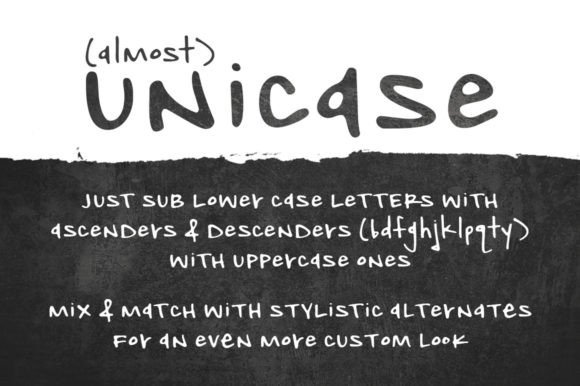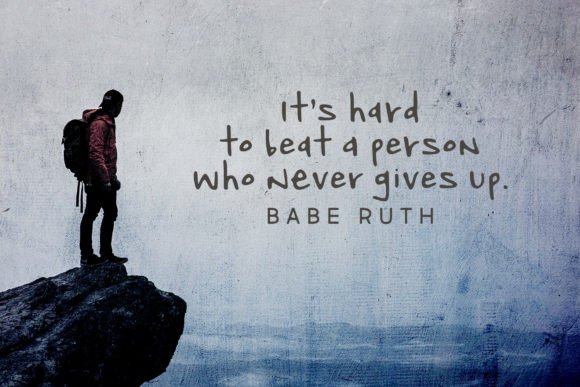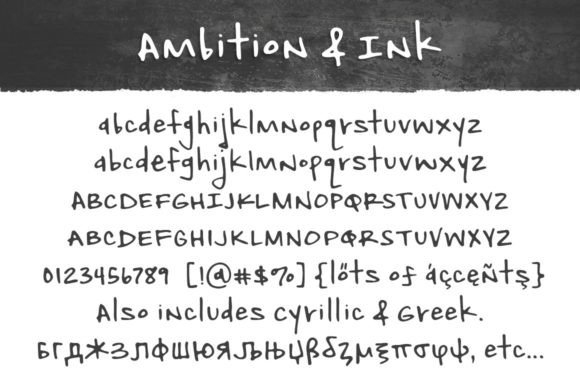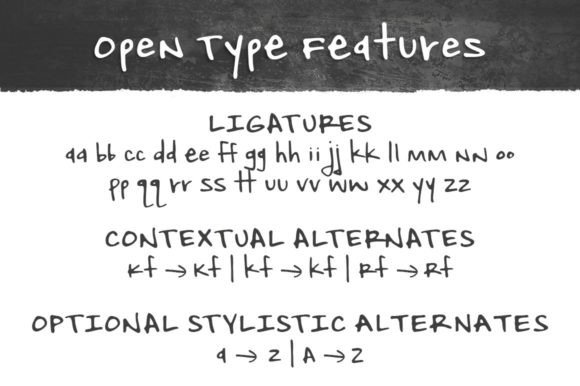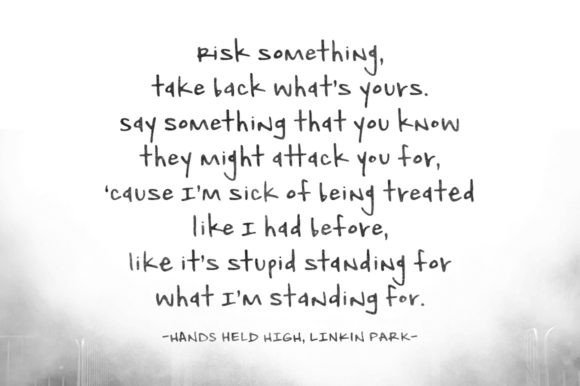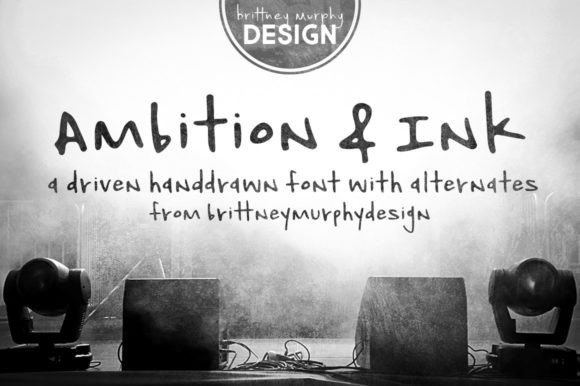
Unleash Your Creativity with Ambition & Ink Font
Are you tired of using the same old fonts for your creative projects? Do you want to add a touch of uniqueness and modernity to your designs? Look no further than Ambition & Ink Font, a driven hand-drawn font that offers a wide range of customization options. With its distinctive characters, this font is perfect for designers and crafters who want to make their creations stand out from the crowd.
The Power of Hand-Drawn Fonts
Hand-drawn fonts have become increasingly popular in recent years, and for good reason. They offer a level of personality and character that digital fonts simply can’t match. Ambition & Ink Font is a prime example of a hand-drawn font that has been carefully crafted to provide a unique and original look. Each character has been meticulously drawn to ensure that it is not only aesthetically pleasing but also highly legible.
Customization Options Galore
One of the best things about Ambition & Ink Font is its versatility. With a wide range of customization options available, you can tailor the font to suit your specific needs. Whether you want to change the color, adjust the spacing, or experiment with different combinations of characters, this font gives you the freedom to get creative. Whether you’re designing a logo, creating a social media graphic, or crafting a handmade card, Ambition & Ink Font provides the perfect tool to bring your vision to life.
Make Your Creations Look Fresh and Modern
Ambition & Ink Font is designed to make your creations look fresh and modern. Its unique characters have a youthful energy that is sure to appeal to a wide range of audiences. Whether you’re targeting a younger demographic or simply want to add a touch of modernity to your designs, this font is the perfect choice. The clean lines, subtle imperfections, and carefully crafted details all come together to create a font that is both stylish and sophisticated.
Ambition & Ink Font is a must-have for designers and crafters who want to take their creations to the next level. Whether you’re a professional designer or a hobbyist crafter, this font provides the perfect tool to add a touch of personality to your work. With its highly legible characters and extensive customization options, Ambition & Ink Font is ideal for a wide range of projects, from branding and advertising to crafting and DIY.
Key Features of Ambition & Ink Font
- Driven hand-drawn font with unique characters
- Lots of customization options to suit your needs
- Perfect for making your creations look original, fresh, and modern
- Highly legible characters for easy reading
- Ideal for designers and crafters who want to add a touch of personality to their work
Get Creative with Ambition & Ink Font
Tips and Tricks for Using Ambition & Ink Font
To get the most out of Ambition & Ink Font, here are a few tips and tricks to keep in mind:
- Experiment with different colors and combinations of characters to find the perfect look for your project
- Adjust the spacing and sizing to create a unique and visually appealing design
- Use Ambition & Ink Font to add a touch of personality to your branding and advertising materials
- Combine Ambition & Ink Font with other fonts and graphics to create a truly unique look
| Font Name | Ambition & Ink Font |
Ambition & Ink Font is a powerful tool for designers and crafters who want to add a touch of uniqueness and modernity to their creations. With its driven hand-drawn design, extensive customization options, and highly legible characters, this font is perfect for a wide range of projects. Whether you’re a professional designer or a hobbyist crafter, Ambition & Ink Font is a must-have font that will help you take your creations to the next level.